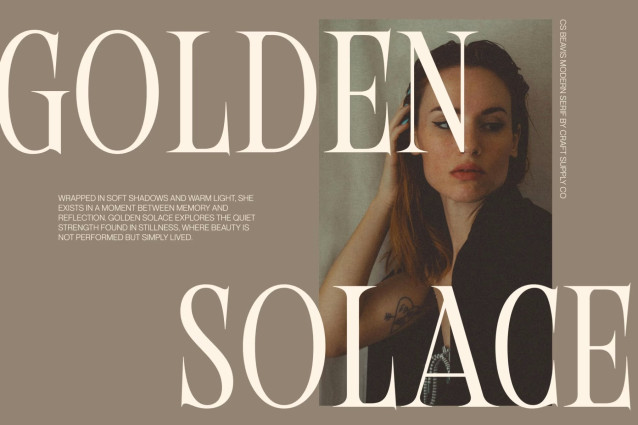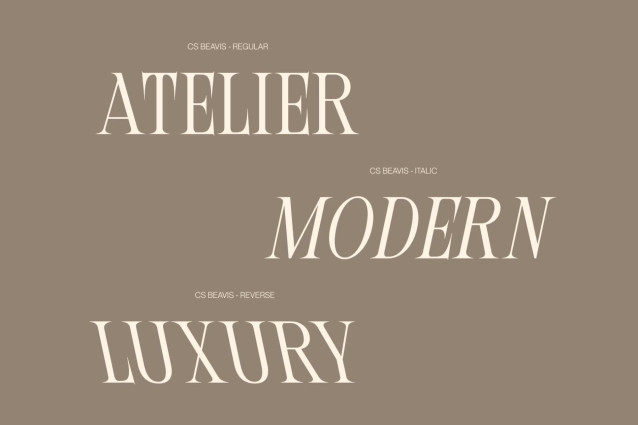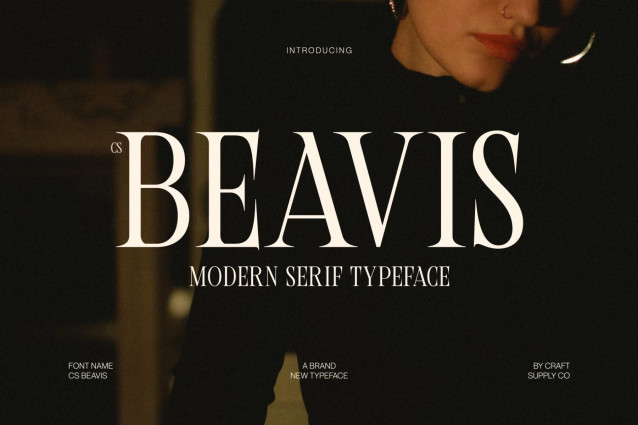
CS Beavis – Modern Serif Display Font: Where Contemporary Clarity Meets Elegant Expression
Modern Serif Display Font
This is a modern serif display font shaped by clean, contemporary letterforms and a refined visual rhythm. It delivers a balanced combination of elegance and modern simplicity, creating a strong typographic presence that feels both sophisticated and approachable. Every character is designed to express clarity with a subtle touch of class.
Clean Contemporary Letterforms
The font features smooth, well-structured shapes that emphasize modern design principles. Its clean construction enhances readability while maintaining a distinct editorial personality. This font brings a polished aesthetic that works seamlessly in both bold headlines and refined visual compositions.